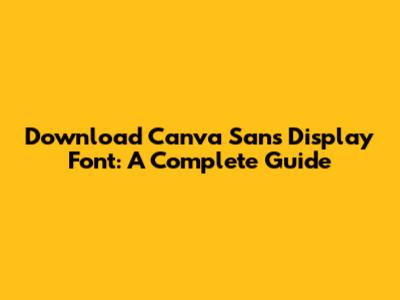
Download Canva Sans Display Font: A Complete Guide
Hey everyone! Are you looking to spice up your designs with a sleek, modern font? Well, you're in the right place! We're diving deep into the world of Canva Sans Display, a versatile and stylish font that can take your projects to the next level. This guide will walk you through everything you need to know about downloading and using this fantastic font, ensuring your designs always look their best. Get ready to transform your text game, guys!
What is Canva Sans Display Font?
First things first, what exactly is Canva Sans Display? This font is a member of the Canva Sans family, designed by the popular graphic design platform Canva. It's a clean, geometric sans-serif font, perfect for a wide range of applications. Think of it as your design Swiss Army knife – it works beautifully for headlines, body text, and everything in between. It's designed to be easily readable at various sizes, making it a great choice for both print and digital media. The simplicity of Canva Sans Display is its strength, offering a contemporary and professional look that's hard to beat. Its modern, minimalist aesthetic makes it a favorite among designers aiming for a polished, uncluttered feel. If you want a font that oozes sophistication without being too flashy, Canva Sans Display is your go-to!
When we talk about design, the font you choose can make or break your project. Choosing the right font, like Canva Sans Display, is crucial. It’s not just about aesthetics; it's about readability, brand consistency, and conveying the right message to your audience. A well-chosen font enhances your content, making it more appealing and easier to digest. Canva Sans Display fits the bill perfectly. Its neutral style ensures it complements any design, whether you're working on a website, a presentation, or a social media post. Whether you’re a seasoned designer or a newbie, understanding and utilizing fonts effectively, especially a font like Canva Sans Display, can drastically improve your designs. This font promotes clarity and elegance, making your content stand out in a sea of visual noise. The right font choice tells a story, and with Canva Sans Display, that story is one of modernity, simplicity, and professionalism. Using it helps create a cohesive and engaging user experience, ensuring that your message is heard loud and clear.
Why Choose Canva Sans Display?
So, why should you choose Canva Sans Display over the myriad of other fonts available? Well, for starters, it's incredibly versatile. It works well in various design scenarios, from creating eye-catching headlines to crafting readable body text. Its clean lines and modern feel give your designs a contemporary edge, making them instantly appealing to the eye. It's also designed for optimal readability, which is key for both print and digital projects. The font is easily legible across different sizes, ensuring your content is always accessible to your audience. This makes it perfect for a wide variety of design uses. This font is a great option for those looking to create professional-looking designs quickly and efficiently. Its simplicity also makes it very user-friendly, allowing designers of all skill levels to achieve stunning results. Ultimately, the ability to download and use a font like Canva Sans Display gives you the power to create designs that are both beautiful and effective, ensuring that your work makes a lasting impression. If you’re looking to create designs that are both visually appealing and highly functional, Canva Sans Display is definitely worth considering.